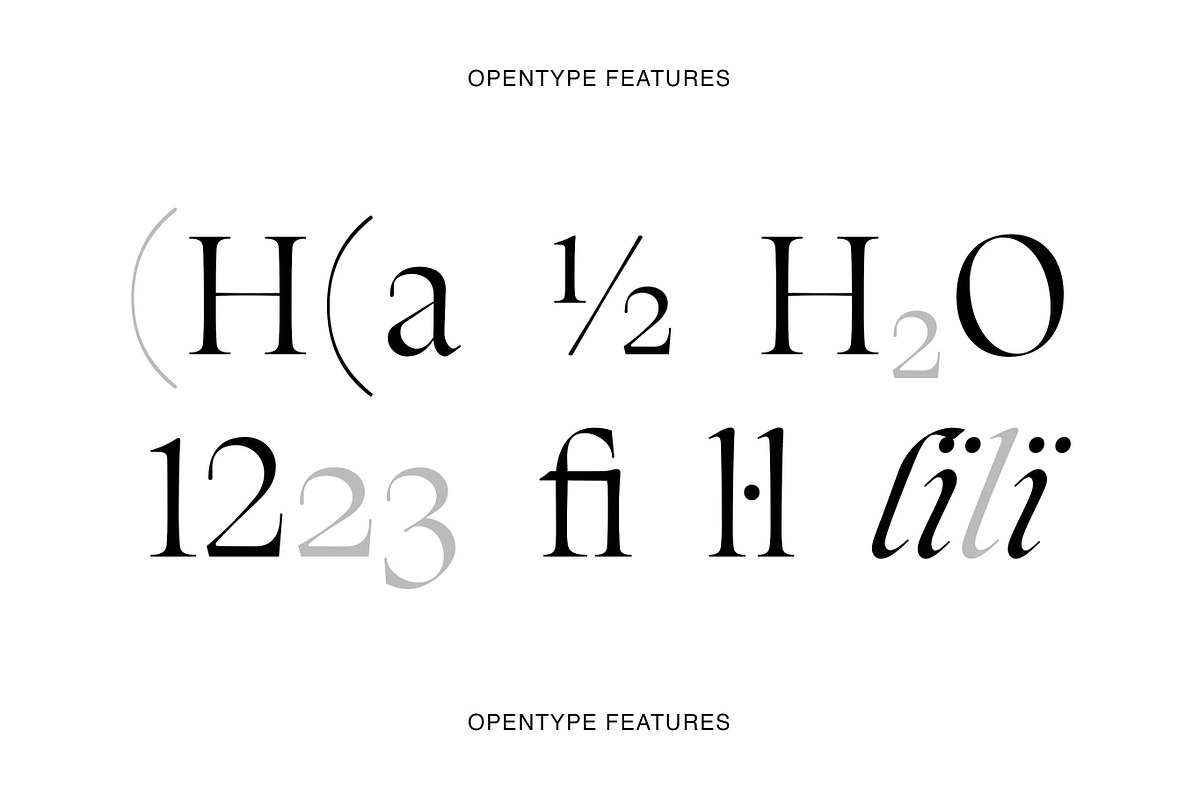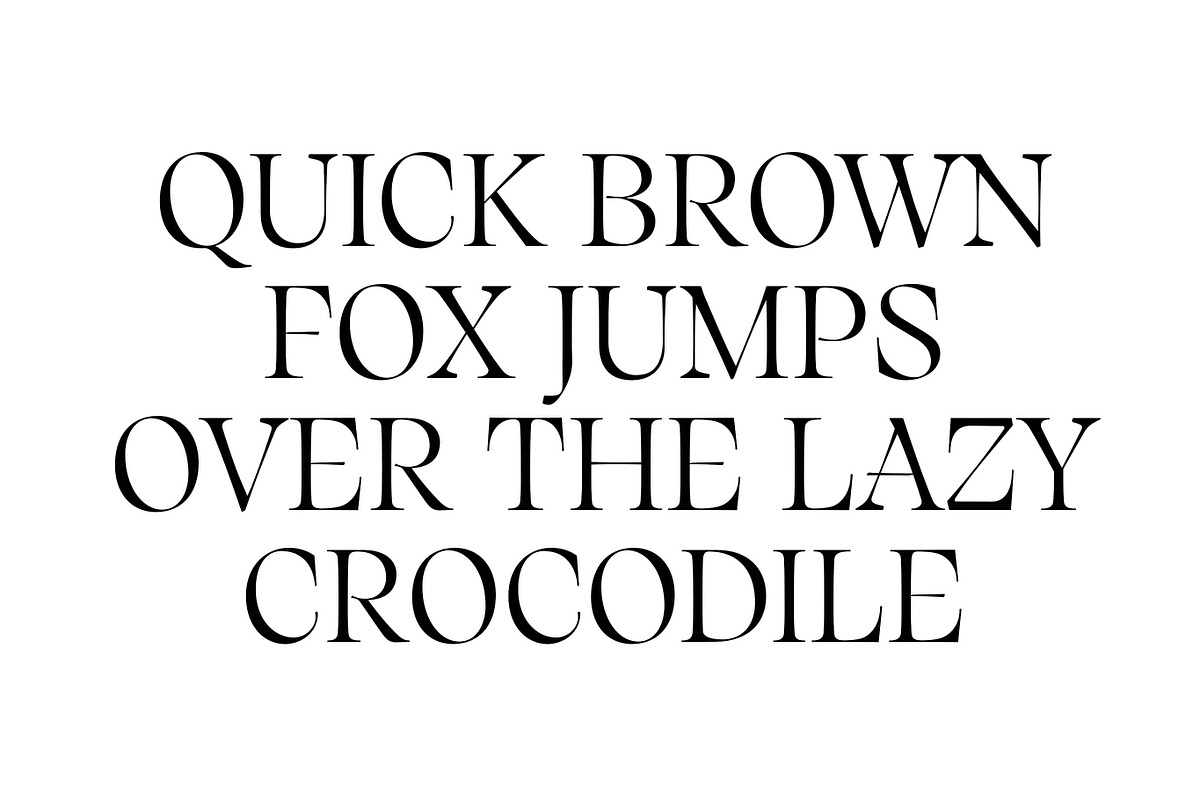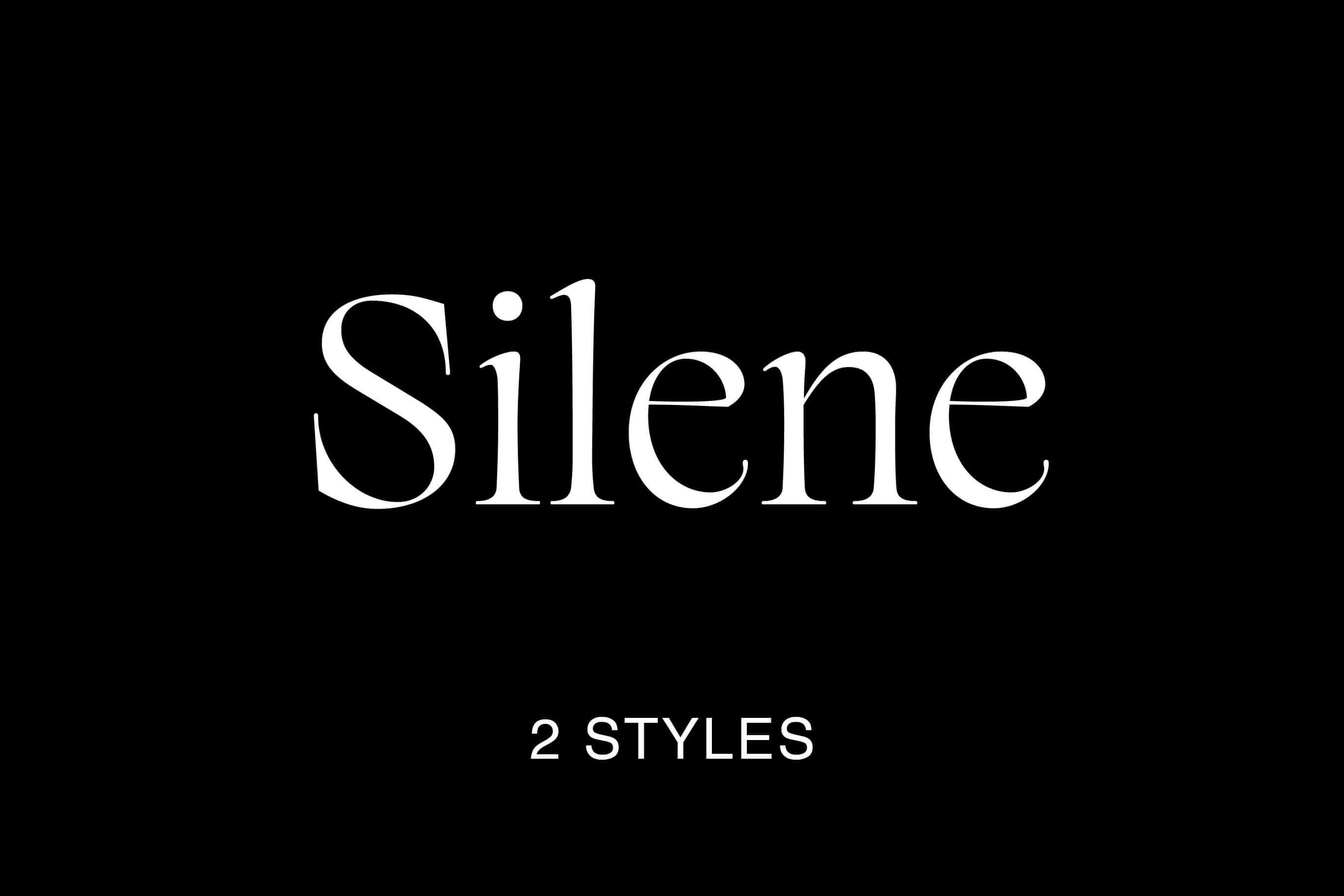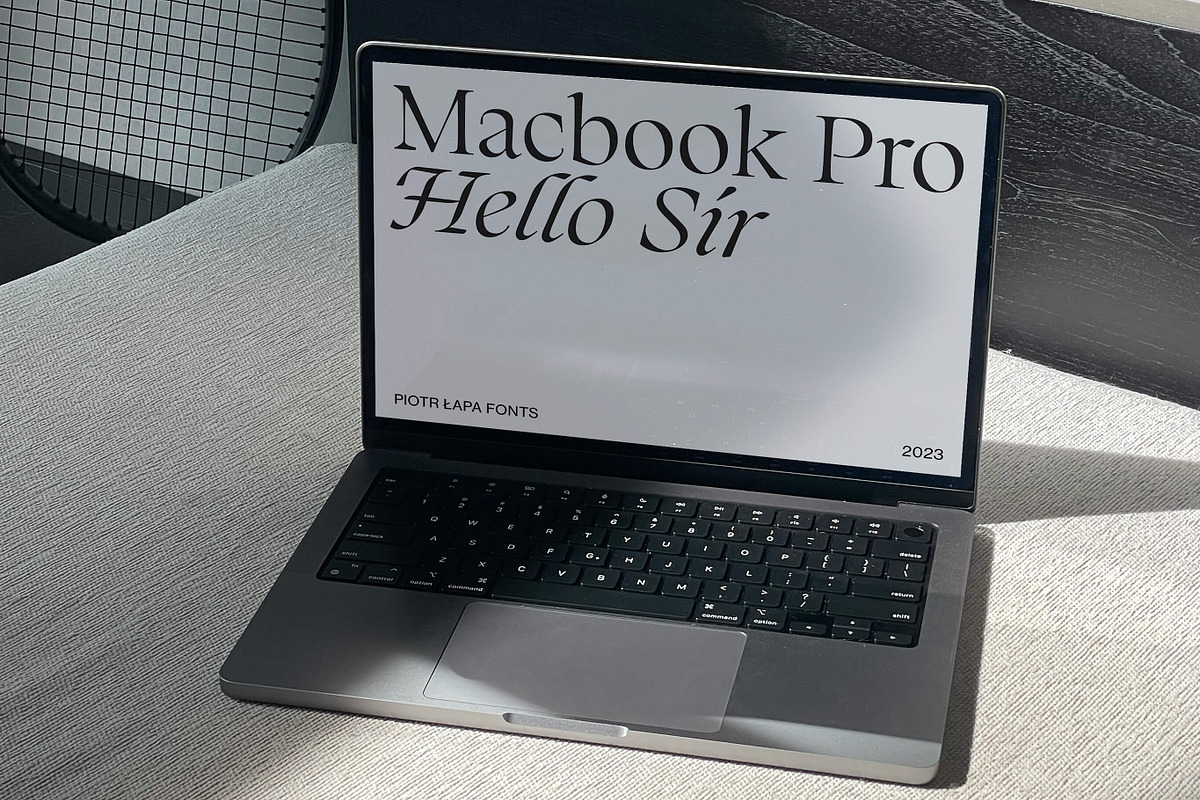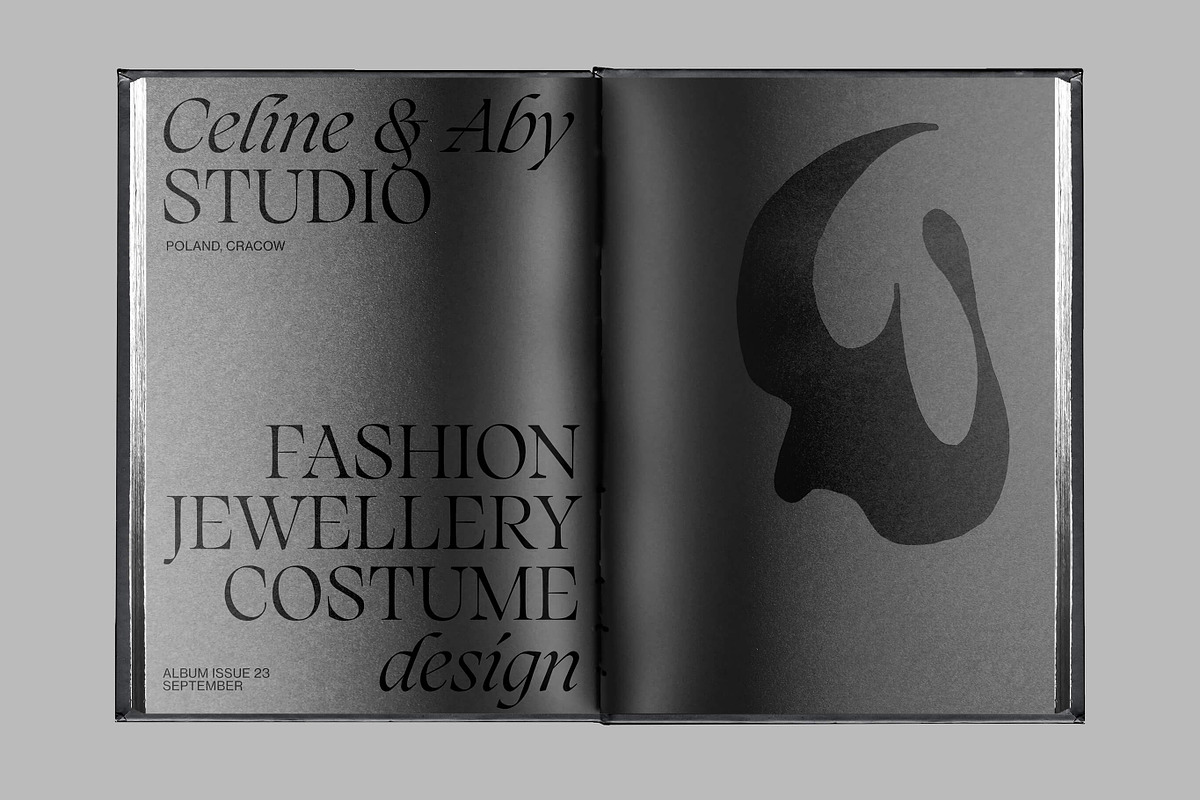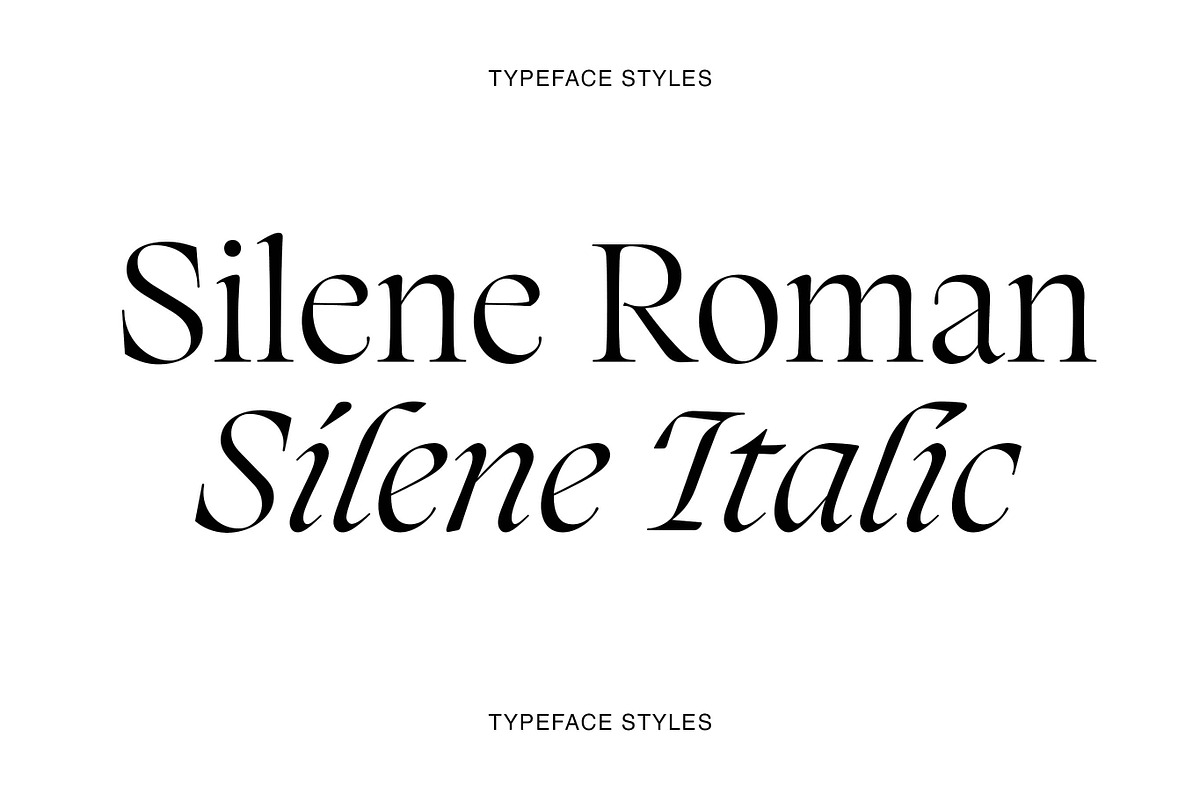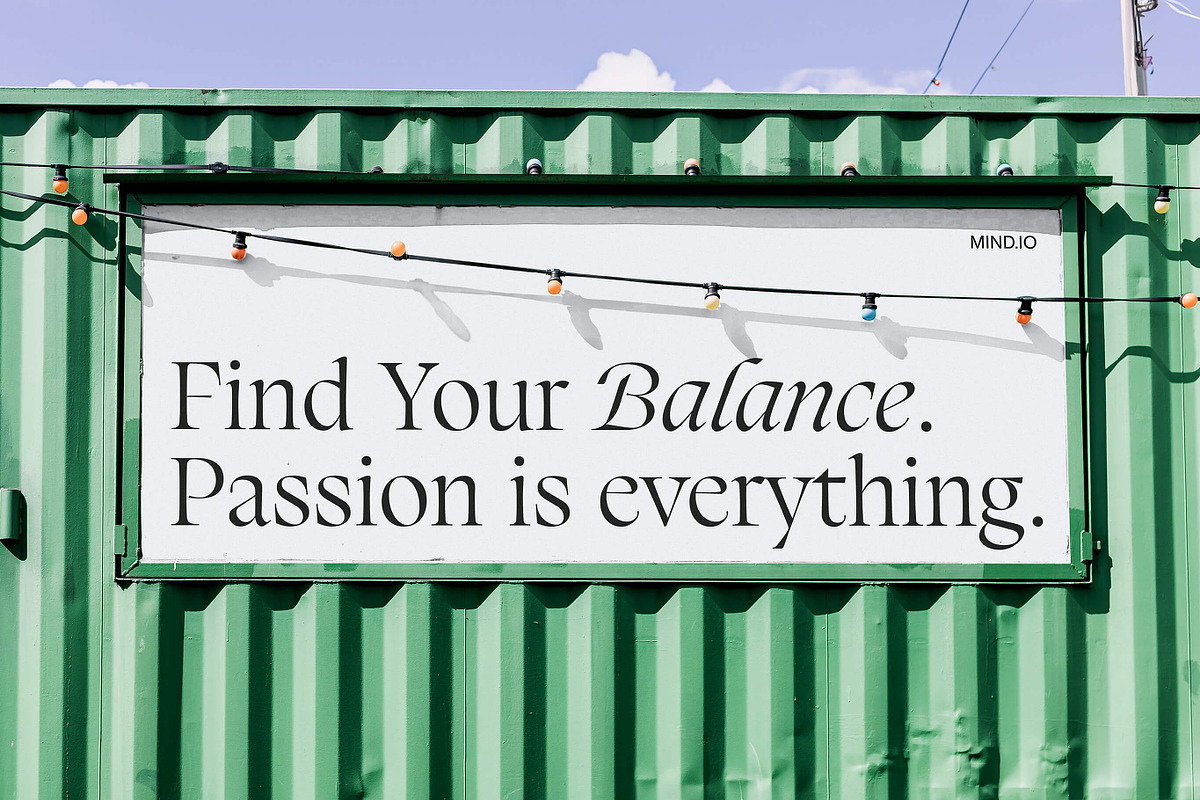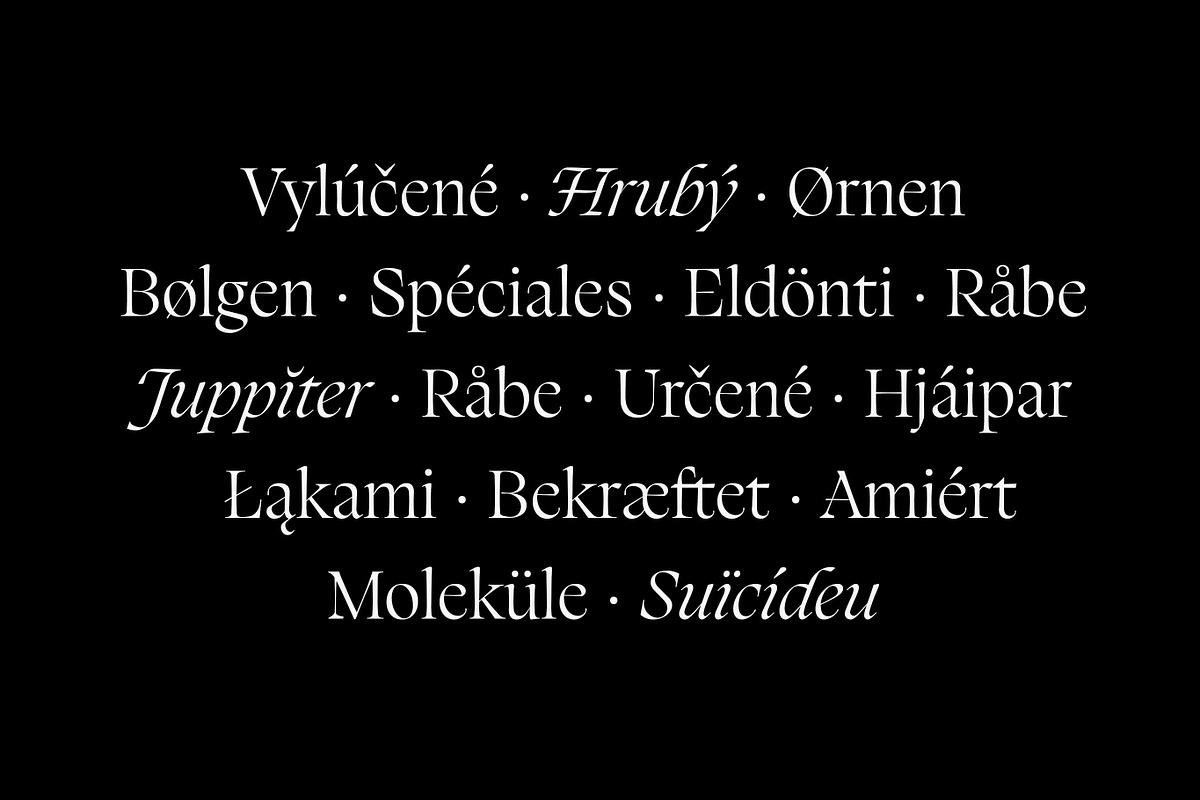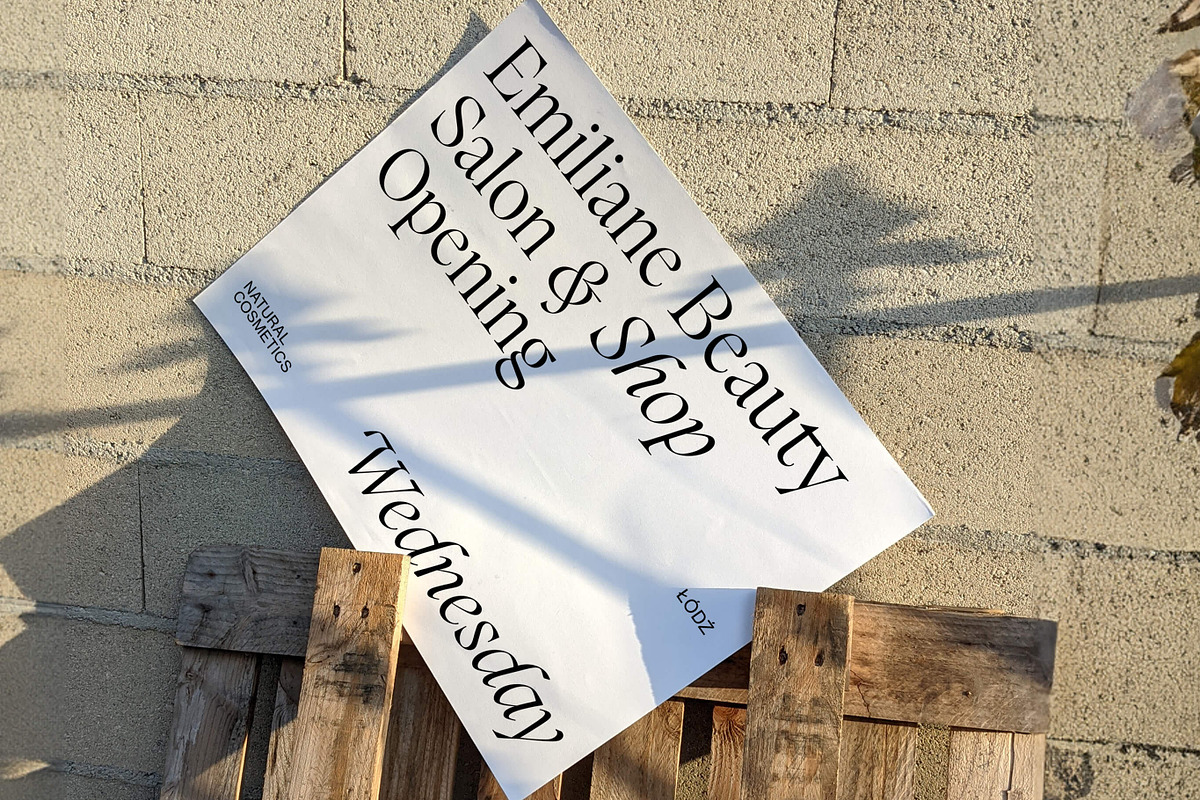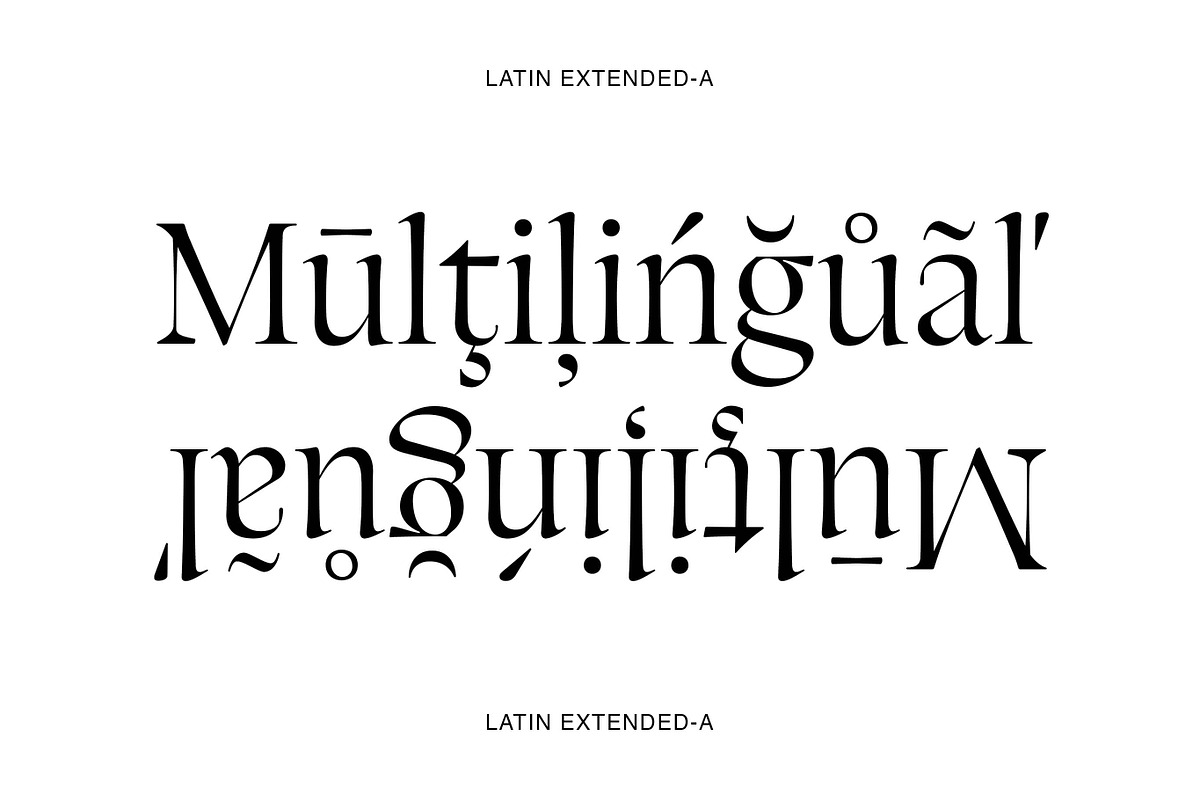
Silene - Elegant Serif Typeface
Silene is an elegant, display, serif typeface inspired by 20th century calligraphy and transitional typefaces. The Roman style is paired with classic and dynamic Italics. Silene has a quiet big x-height value, modern proportions, sharp terminals and an extreme stroke contrast with a diagonal stress. The letterforms are elegant and have beautiful, polished details. Silene is a great choice for fashion projects, headlines, titles, posters, packagings, covers and logotypes but can be also successfully used in some occasional texts.
2 Styles, 1 Weight
Roman & Italic
Extended Latin Support
550+ Glyphs Set
OpenType Features
Precise Kerning